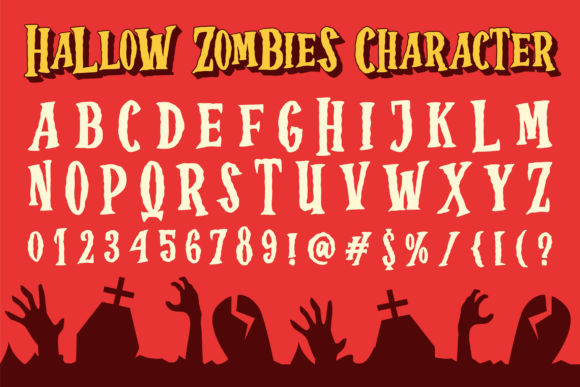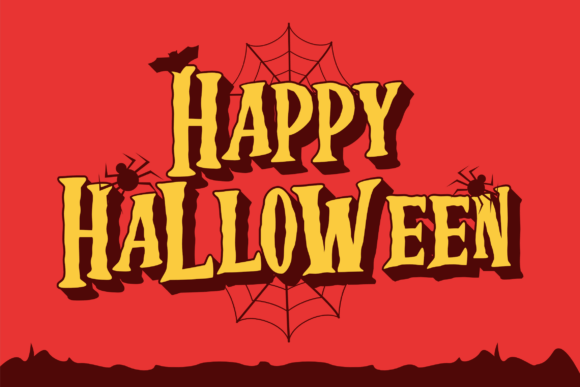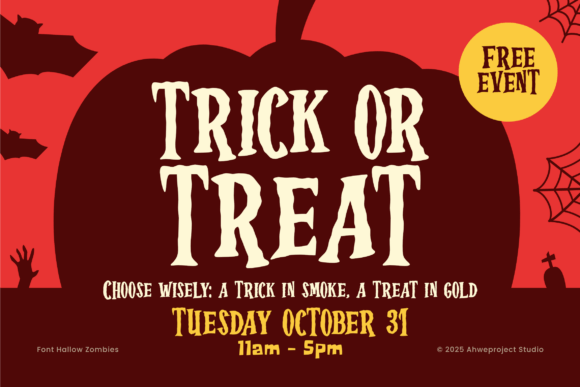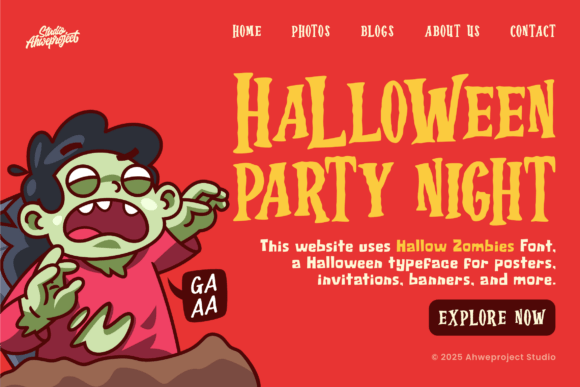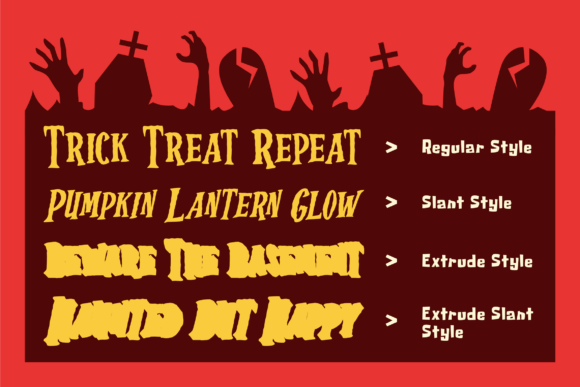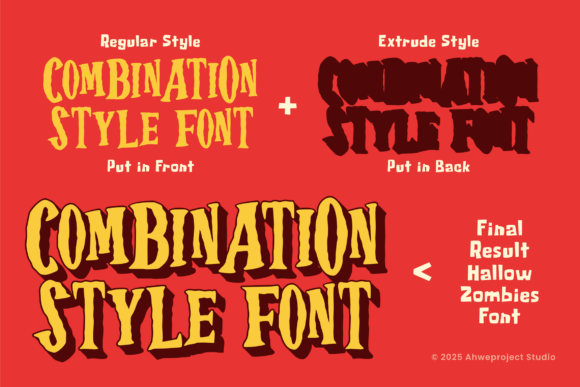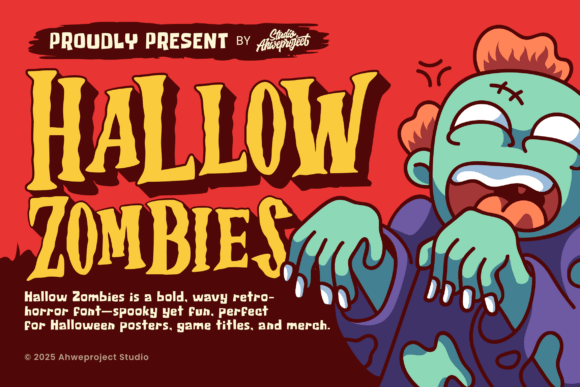
Unleash the Spooky Fun with Hallow Zombies Font: The Ultimate Retro-Horror Display Font
Are you looking for a font that screams Halloween fun and grabs attention instantly? Look no further than the Hallow Zombies Font, a bold, wavy retro-horror display font that’s perfect for all your spooky and playful projects. With its jagged, cartoon-zombie letterforms, this font is sure to make your designs stand out and leave a lasting impression.
The Perfect Font for Halloween and Beyond
Hallow Zombies Font is specifically designed for creators and brands who want to add a playful, scary, and memorable touch to their designs. Its heavy weight ensures maximum impact and clear readability from a distance, making it ideal for a wide range of applications, including:
- Halloween posters and flyers
- Game titles and logos
- Stickers and packaging
- YouTube thumbnails and video titles
- Party invites and event promotions
- Merchandise and apparel
A Font that’s Both Spooky and Fun
What sets Hallow Zombies Font apart is its unique blend of spooky and playful elements. The jagged, cartoon-zombie letterforms are sure to send shivers down the spine, while the wavy and bold design ensures a fun and lighthearted feel. This font is perfect for designers and crafters who want to create designs that are both eerie and entertaining.
Key Features of Hallow Zombies Font
Here are some key features that make Hallow Zombies Font a must-have for designers and crafters:
- Bold and heavy weight: For maximum impact and clear readability from a distance
- Wavy and jagged letterforms: For a unique, retro-horror feel that’s both spooky and fun
- Cartoon-zombie style: For a playful and lighthearted touch
- Instant attention-grabbing: For designs that need to stand out
- Clear readability: For easy reading, even from a distance
How to Use Hallow Zombies Font in Your Designs
Using Hallow Zombies Font in your designs is easy and fun. Here are some tips to get you started:
- Pair with a solid background: For maximum contrast and impact
- Use in combination with other fonts: For added visual interest and hierarchy
- Experiment with colors: For a unique and eye-catching effect
- Add textures and effects: For added depth and interest
Get Ready to Unleash the Spooky Fun!
In conclusion, Hallow Zombies Font is a bold, wavy retro-horror display font that’s perfect for designers and crafters who want to add a playful, scary, and memorable touch to their designs. With its unique blend of spooky and fun elements, this font is sure to grab attention and leave a lasting impression. So don’t miss out on this amazing opportunity to take your designs to the next level – download Hallow Zombies Font today!